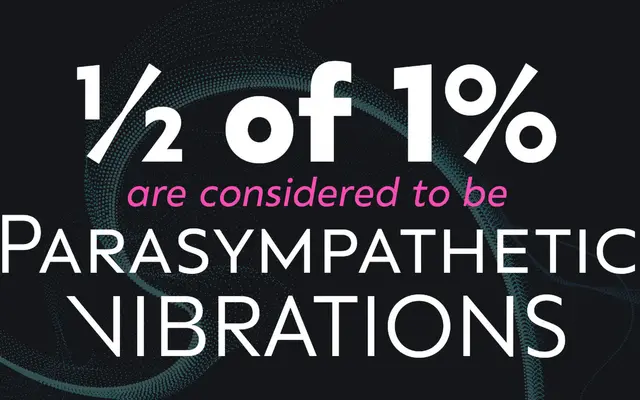
Grava
Positype · Neil Summerour · 2019
A geometric sans by Neil Summerour that softens the category's characteristic austerity with humanist warmth, available in 60 styles across Latin, Cyrillic and Greek.
Spanning ten weights from Thin to Ultra with matching obliques, Grava addresses the structural inconsistencies inherent in strict geometric sans design by introducing warmth without abandoning geometric rigour. A Display subfamily adds sharp points and conspicuous angles suited to poster sizes, book covers and expressive branding, while optional ligatures invoke a midcentury modernist sensibility. All three scripts — Latin, Cyrillic and Greek — are bundled together and spaced comprehensively across 330 supported languages.
Grava is explicitly positioned within the geometric sans category, built on triangle, circle and square foundations but tempered with humanist warmth to offset the coldness typical of strict geometric designs.